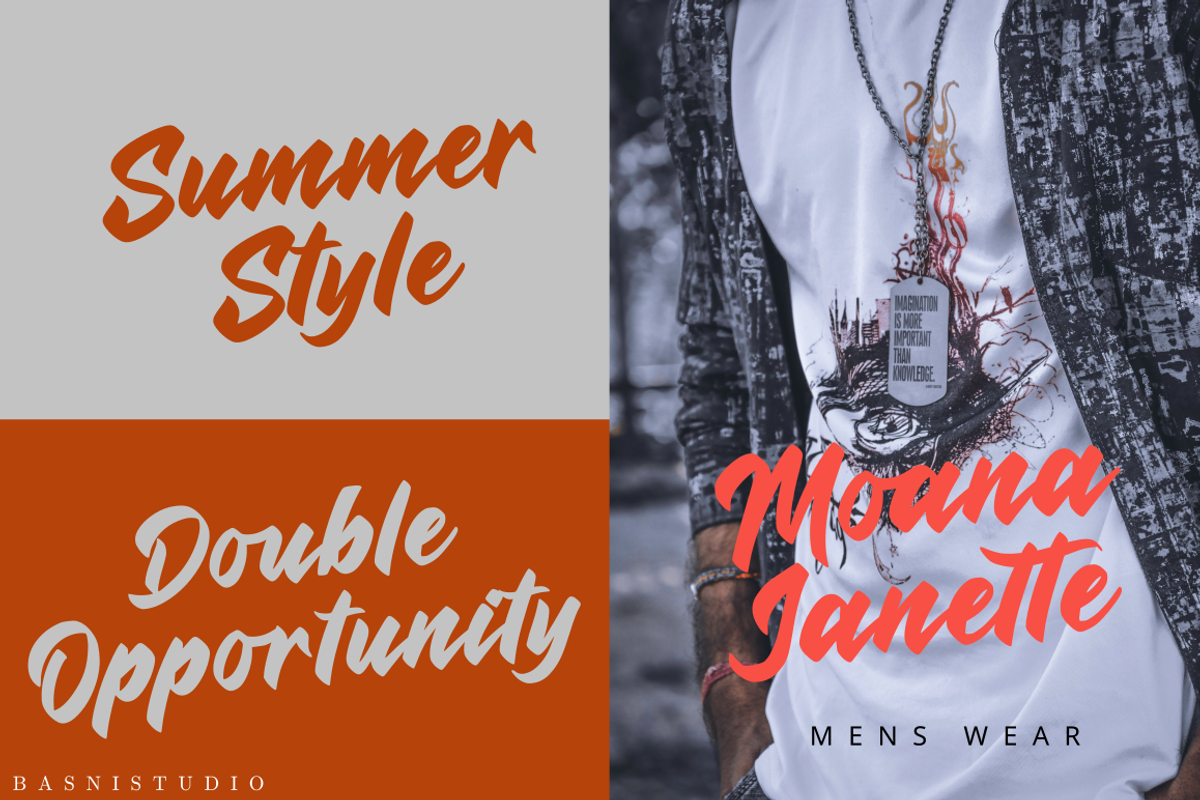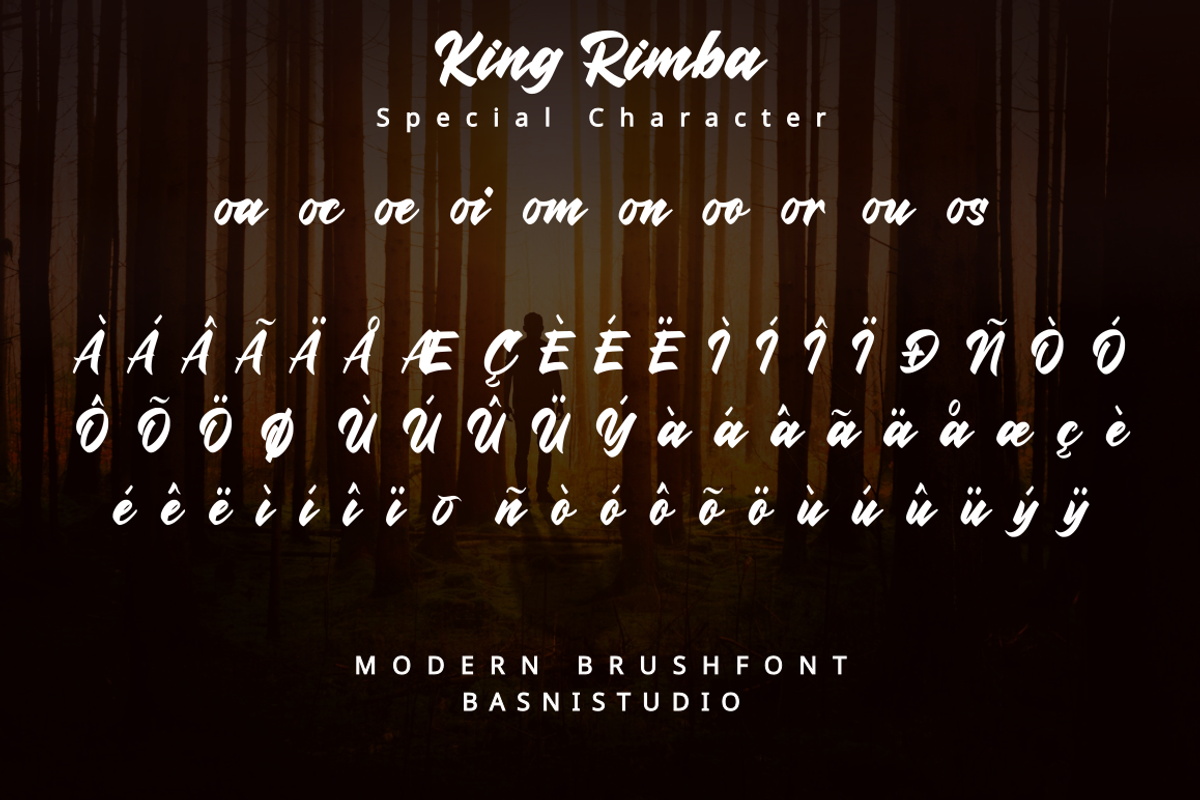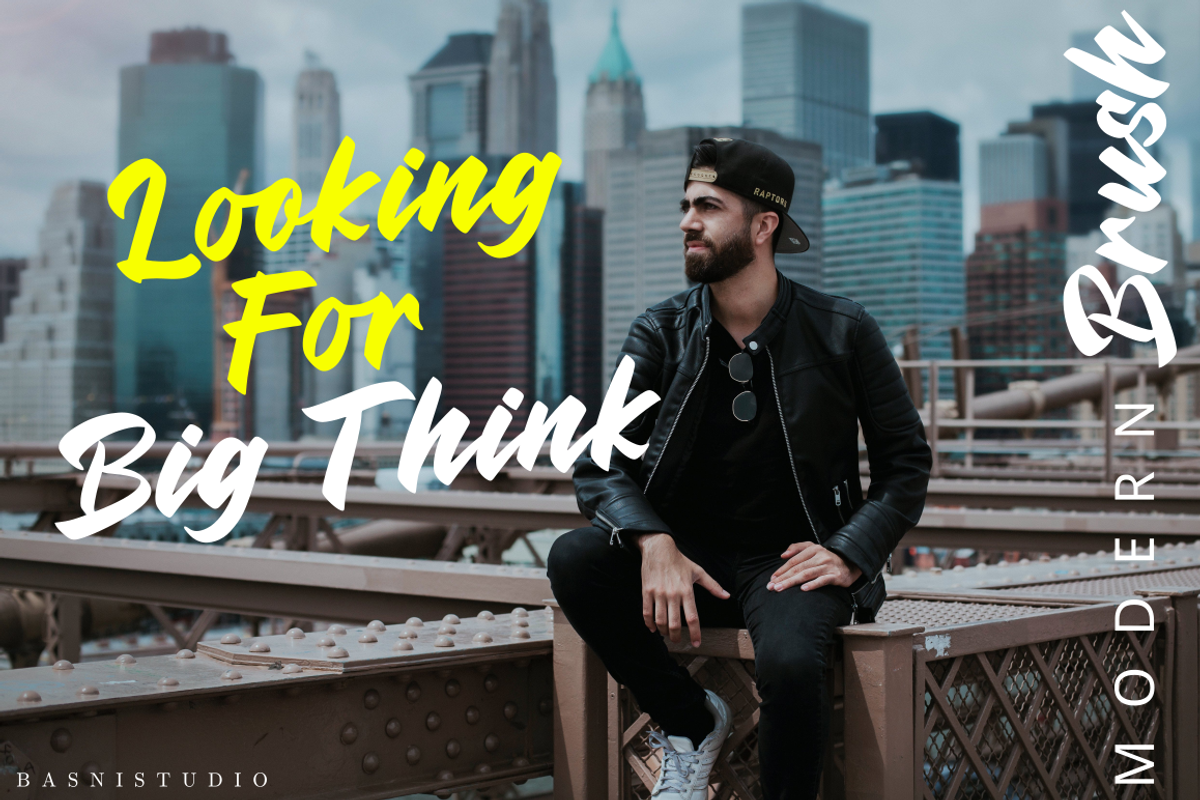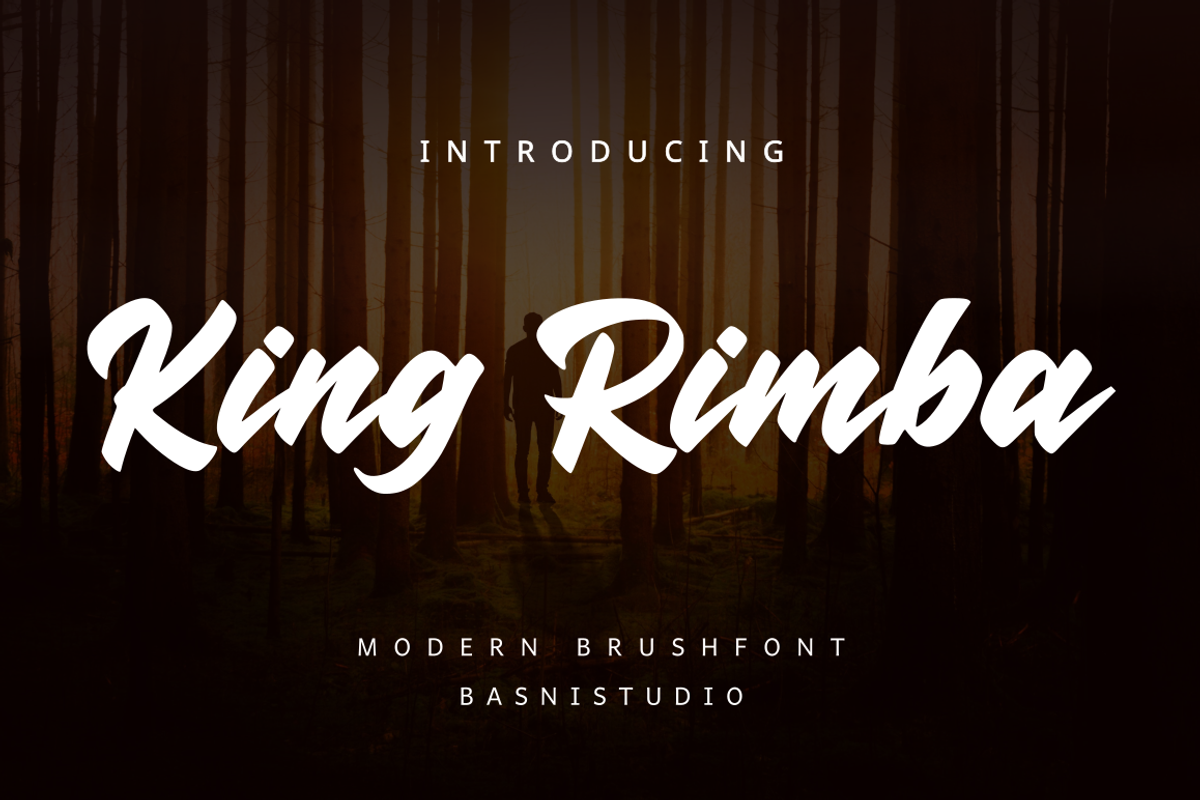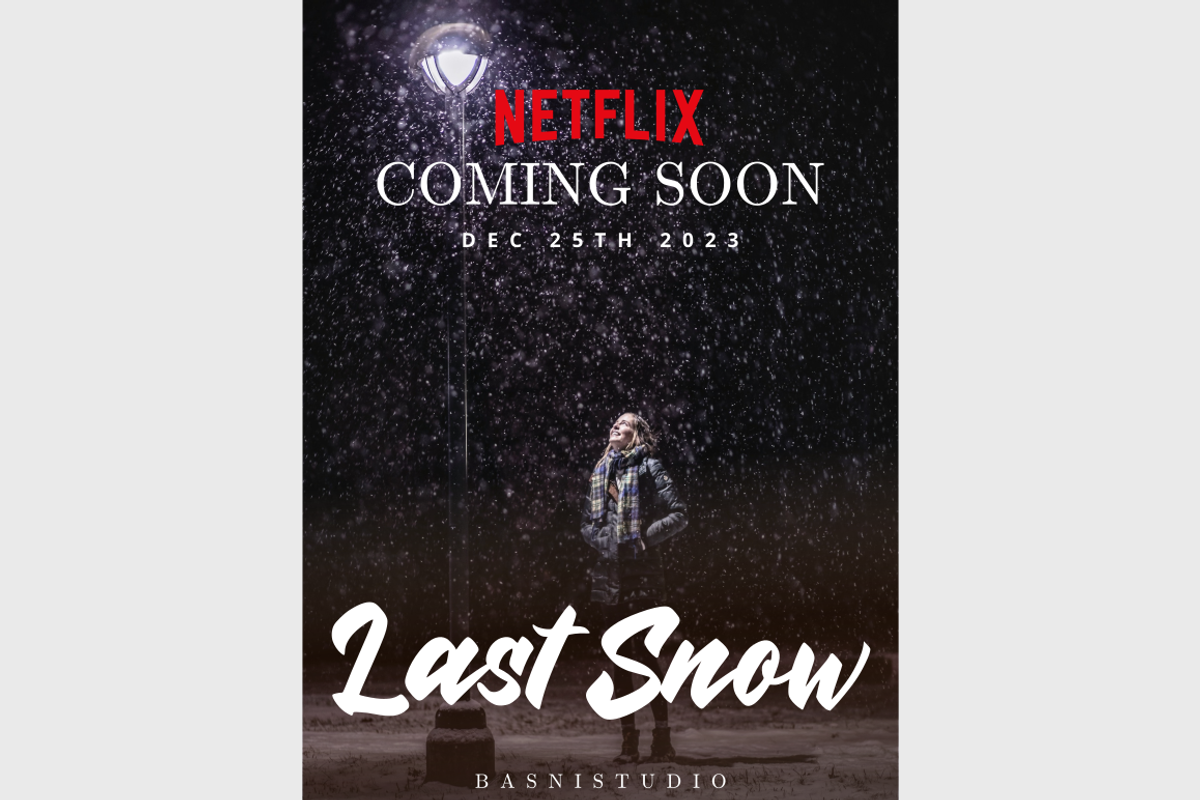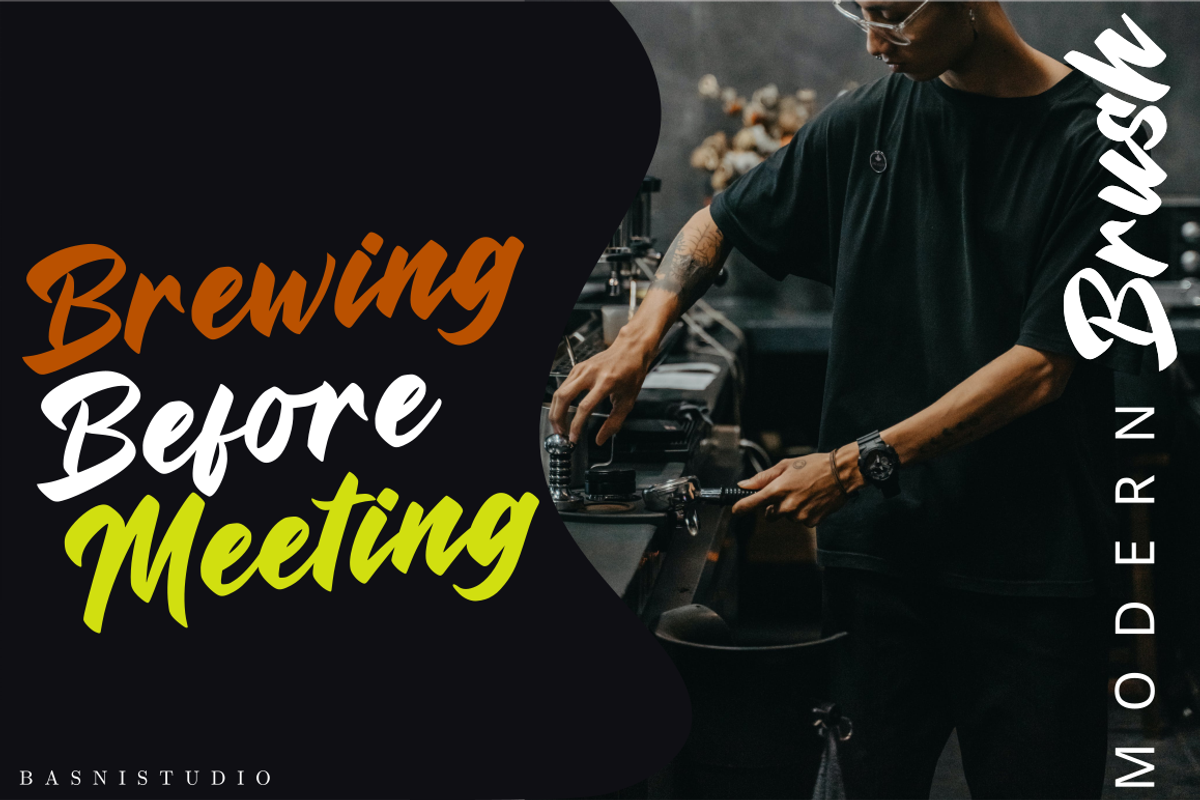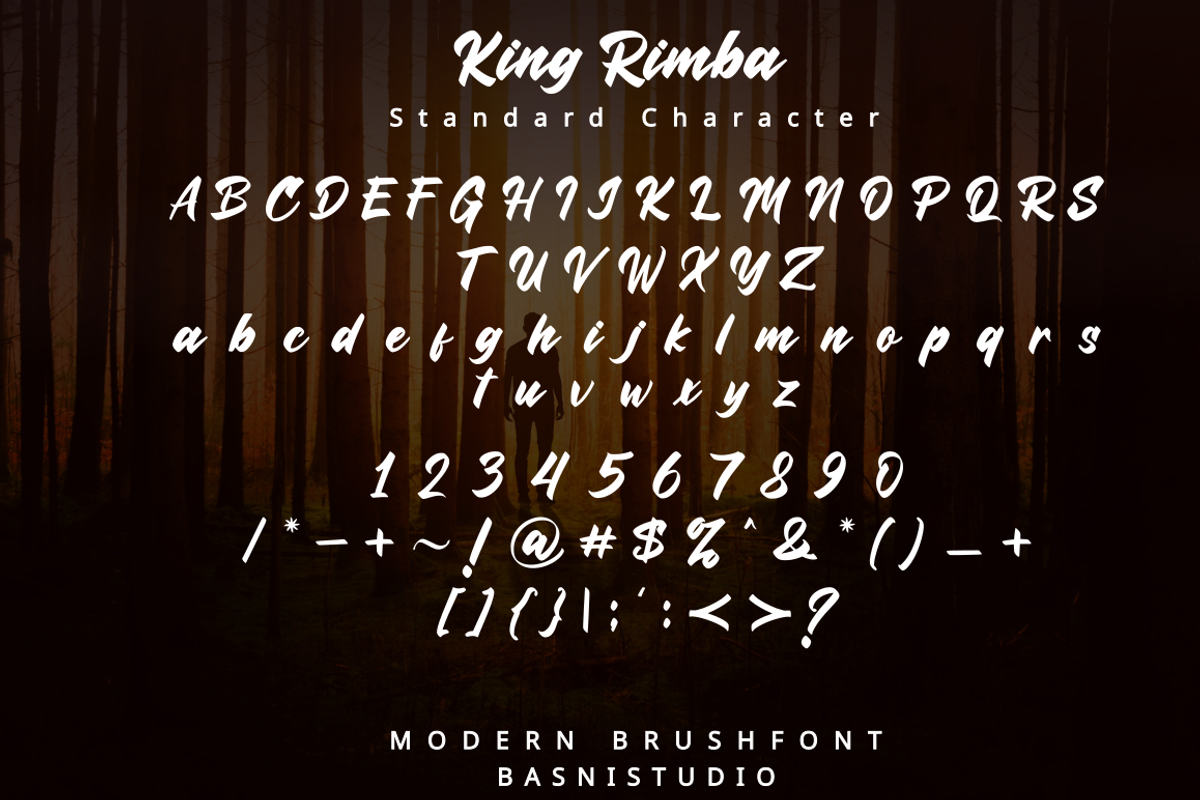
King Rimba Modern Brush Font
Introducing King Rimba Modern Brush Font
King Rimba Modern Brush Font, made with Naturaly Brush and precision, perfect for branding, websites, and editorial designs. Includes all Caps letters, multilingual support, punctuation, binding. everything can be easily accessed using software that supports OpenType. What’s include: